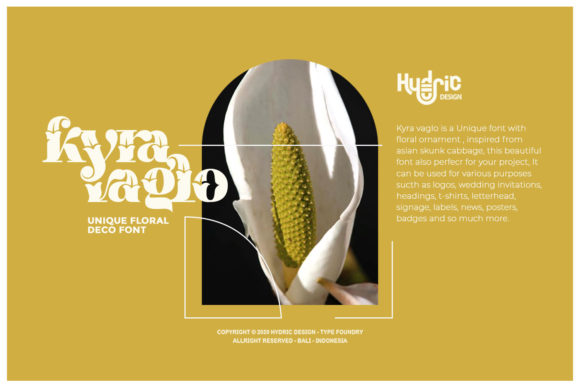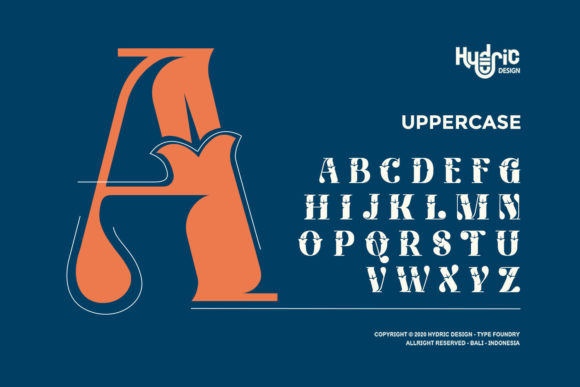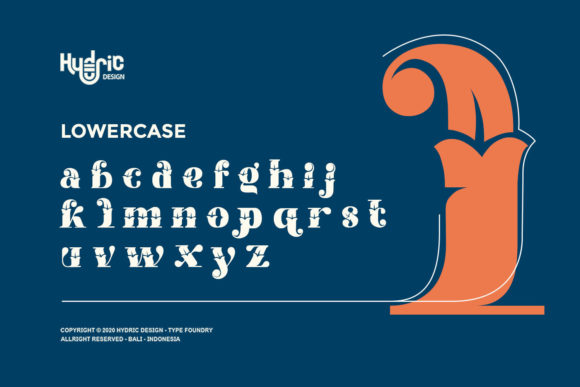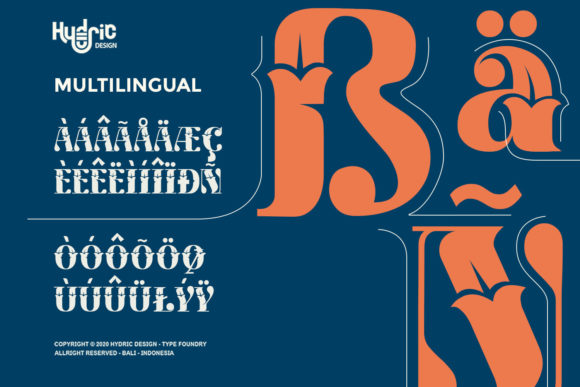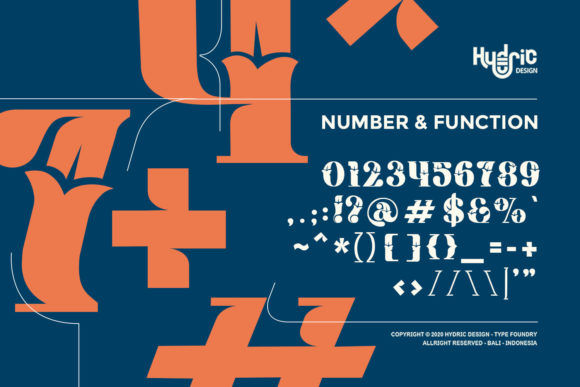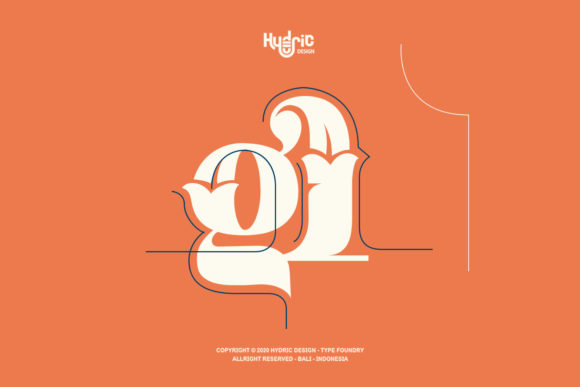
Introduction to Kyra Vaglo Font
Kyra Vaglo is a charming decorative font.
Fall in love with its authentic feel and use it to create gorgeous invitations, beautiful stationary art, eye-catching social media posts, and cute greeting cards .
Key Features of Kyra Vaglo Font
Why Choose Kyra Vaglo Font?
Kyra Vaglo Font offers exceptional quality and versatility, making it a valuable addition to your design toolkit. Whether you’re creating for personal projects or commercial use, Kyra Vaglo Font delivers professional results.